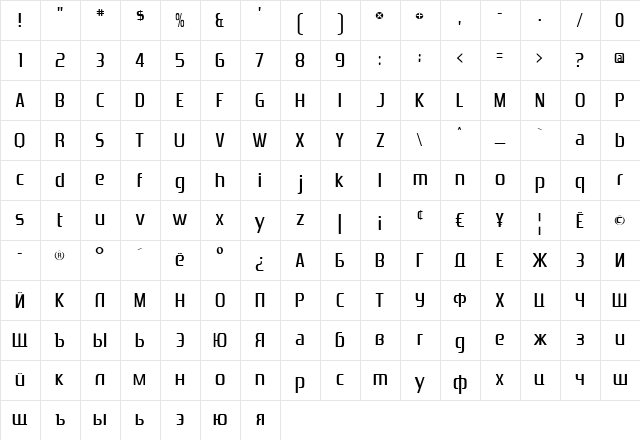
Zrnic Cyr Normal
| Designer | Ray Larabie - eng. & Nikolay Dubina - cyr. |
Design Context for Zrnic Cyr Typeface
Zrnic Cyr is a composed and adaptable typeface that performs quietly and consistently across a wide range of design contexts.